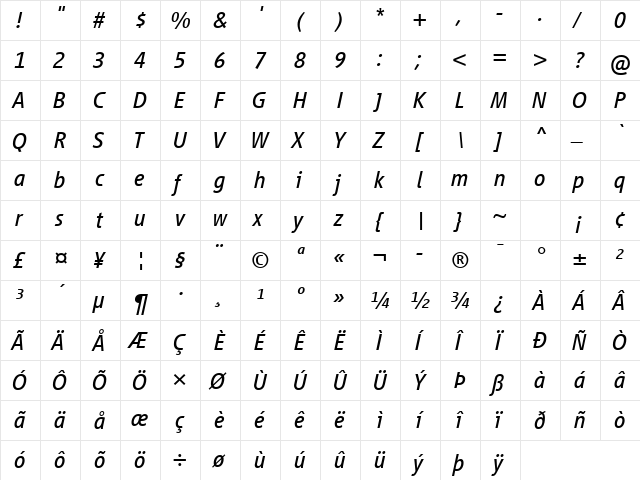
Vialog LT Com Italic
| Foundry | Linotype GmbH |
| Designer | Werner Schneider |
Design Context for Vialog LT Com Typeface
Vialog LT Com offers clean, dependable letterforms without strong stylistic allegiance, making it a practical choice for designers who need flexibility. Its italic angle brings a sense of urgency and motion to the letterforms. Its slender proportions lend an understated elegance to any composition.
Pro Tip: Use Vialog LT Com for emphasis, pull quotes, and subheadings where its slanted energy can add rhythm to the layout.